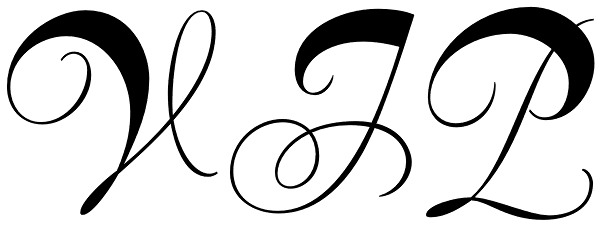
VIP
VIP is a humanist sans serif uppercase and figures combined with a freshly redrawn revival of the classic Constanze initials originally designed by Joachim Romann for Stempel in 1956. As well as a vehicle to revive the Constanze initials, VIP was...